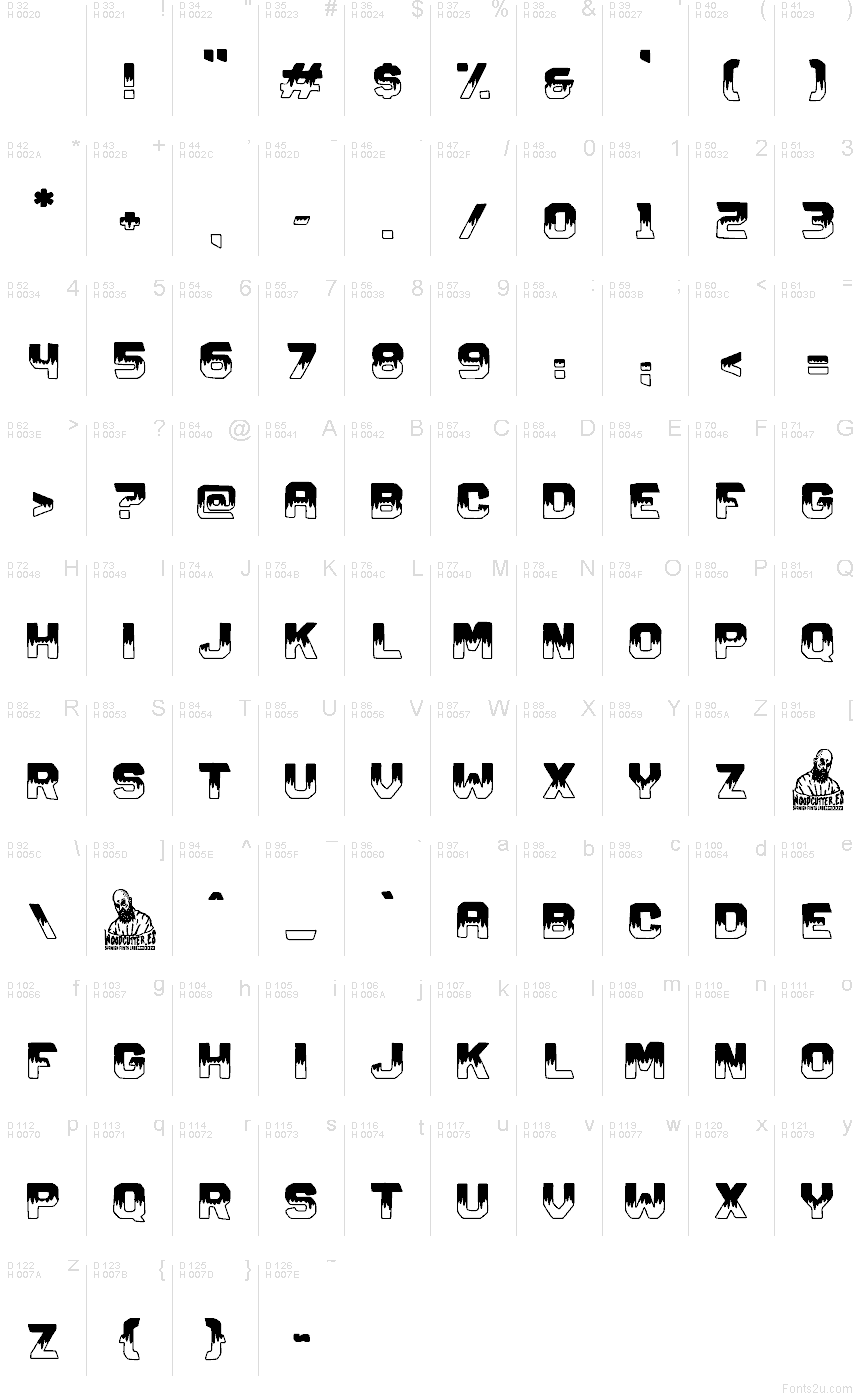
Peligro Inminente
Peligro Inminente font by Woodcutter is a free decorative display typeface that looks like it’s oozing straight off the page. Chunky, squared letterforms form a rigid, industrial skeleton, while thick black drips melt downward like tar, acid, or fresh graffiti. The contrast between the hard outer shapes and the viscous, bleeding interiors gives every word a sense of urgent danger and creeping dread.
Using Peligro Inminente font, you can turn simple titles into horror-film logos, Halloween posters, game splash screens, haunted house signage, or dystopian zine covers. This free font thrives at large sizes where the dripping details stay sharp and menacing; pair it with a plain, narrow sans serif for body text so the chaos stays in the headlines while your information stays readable.
Imminent Danger.